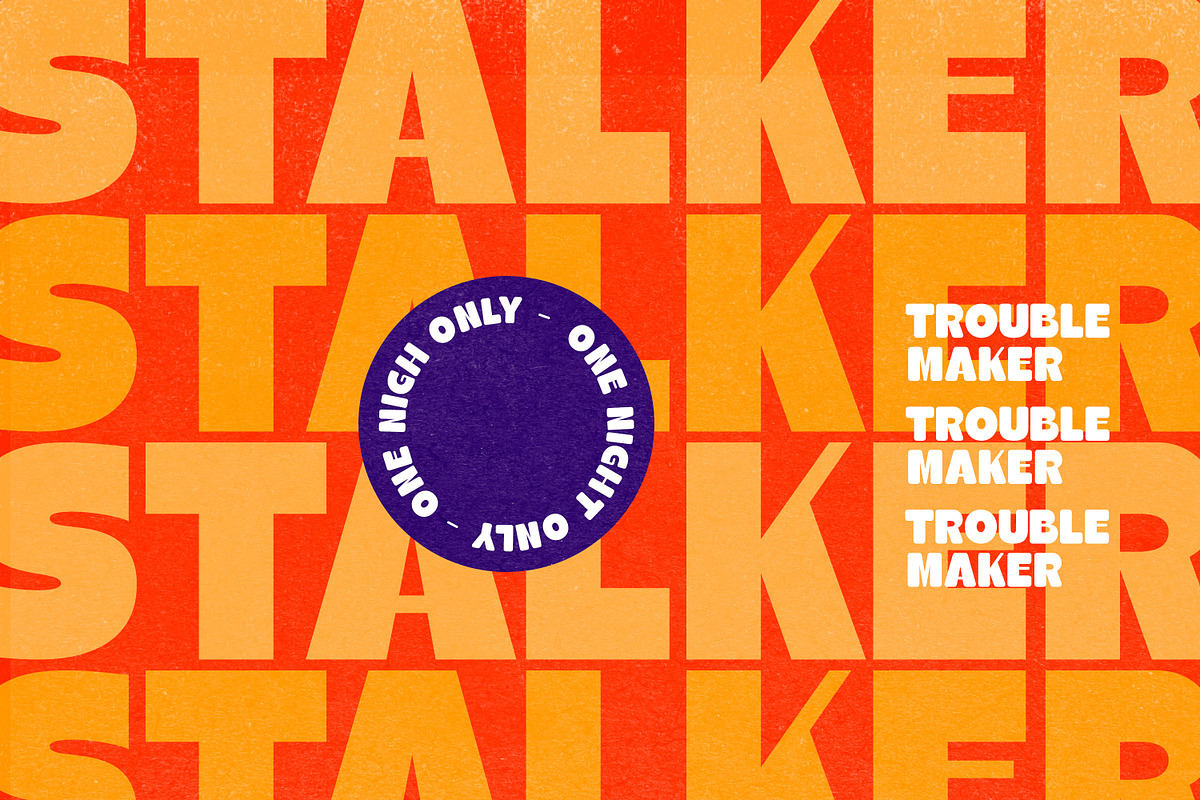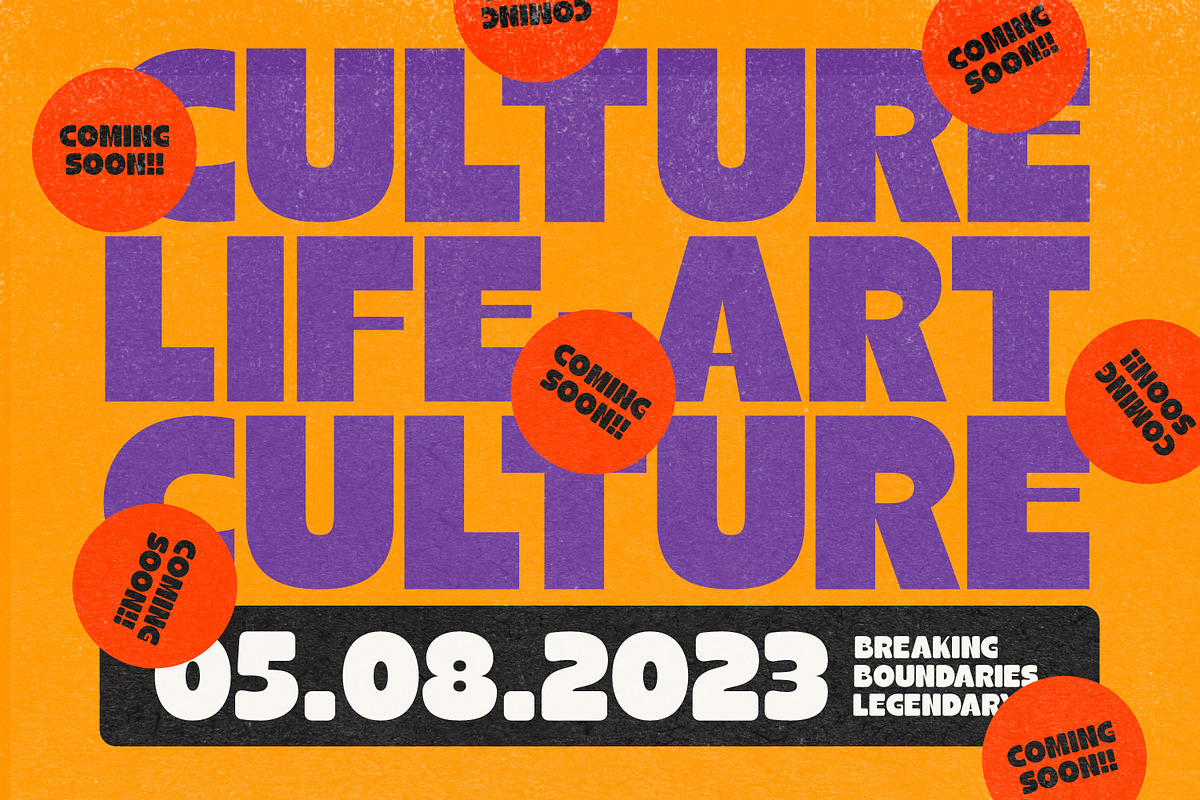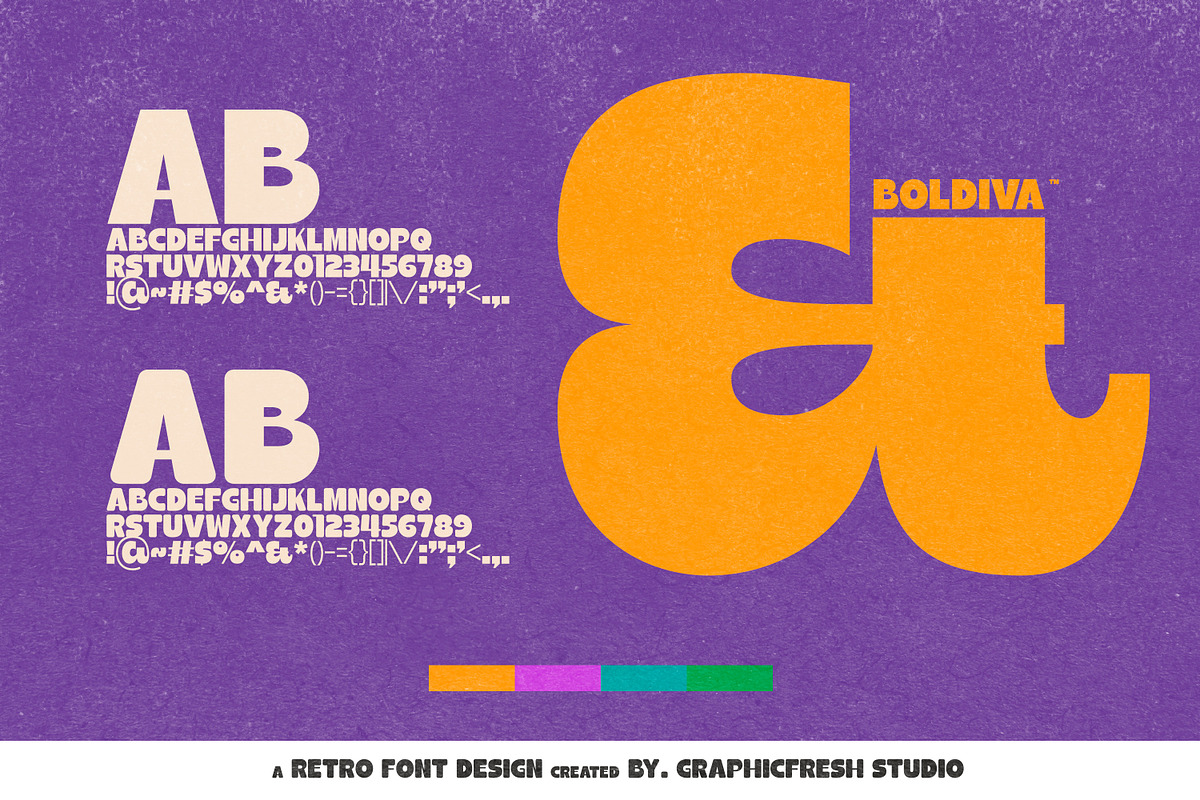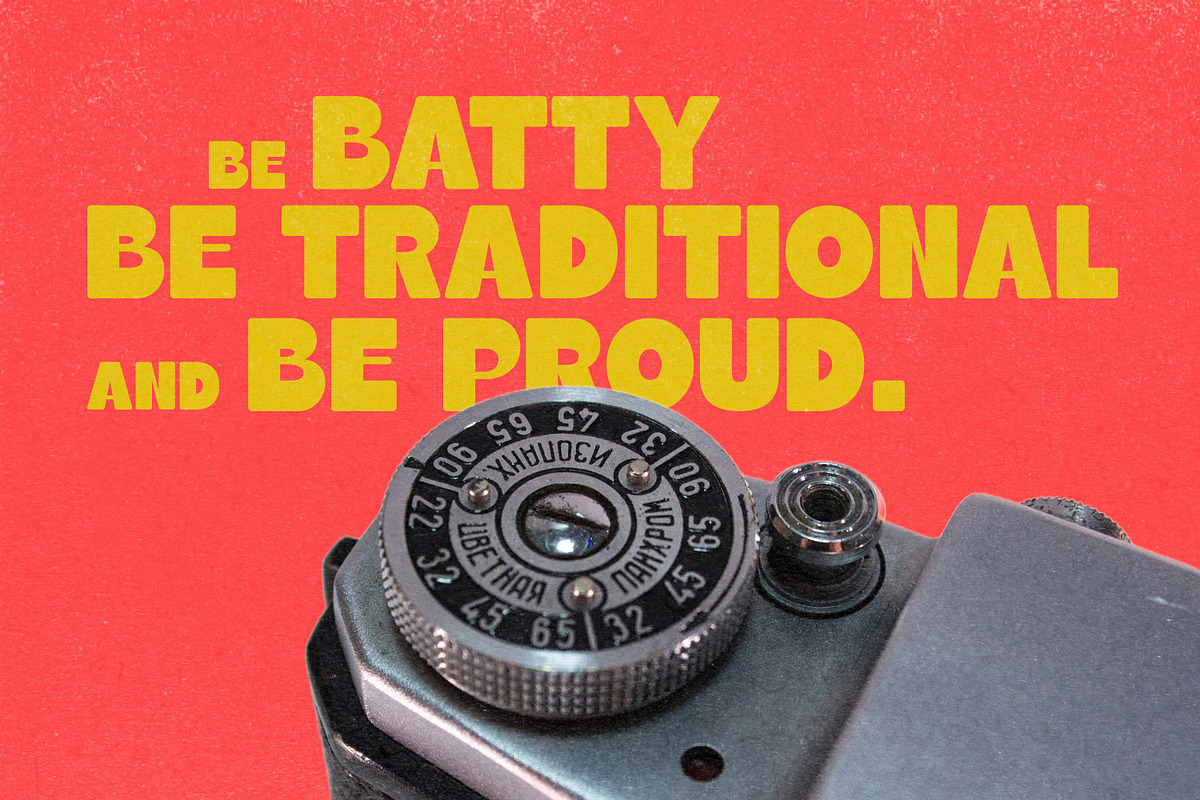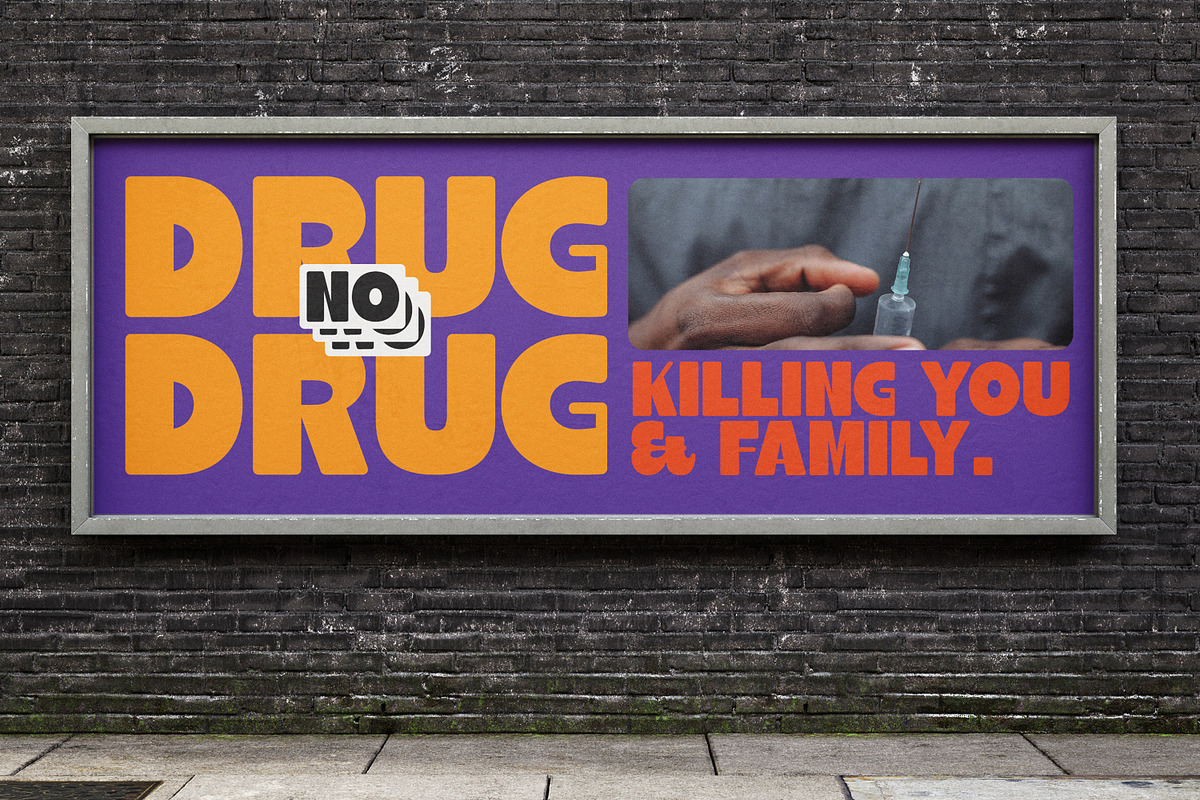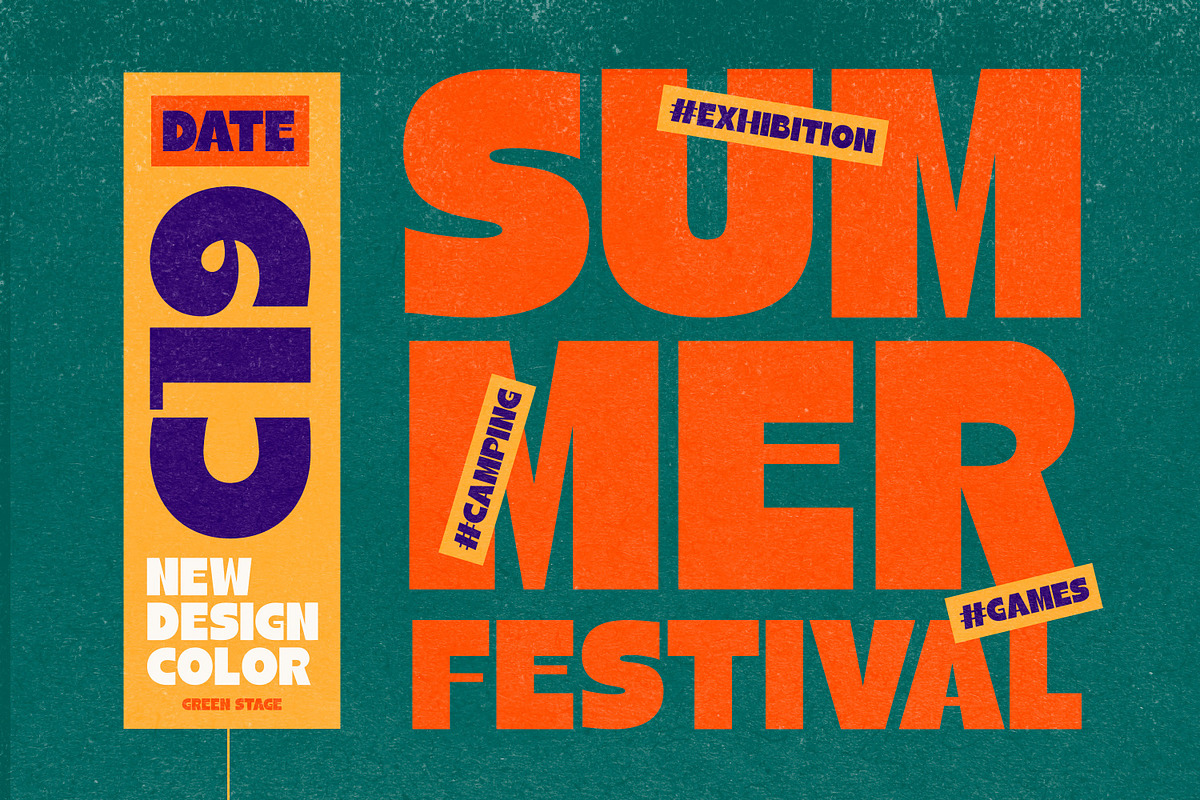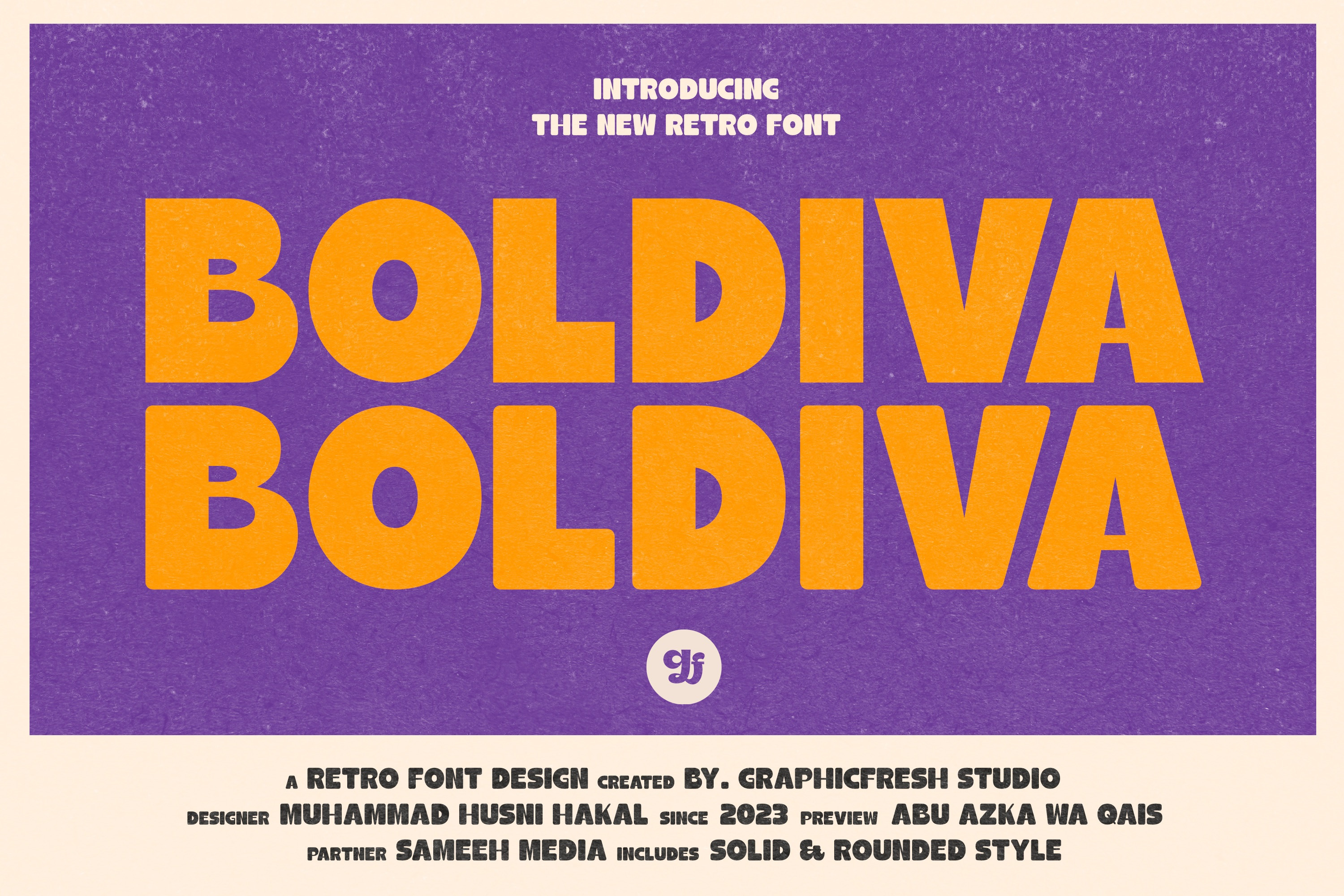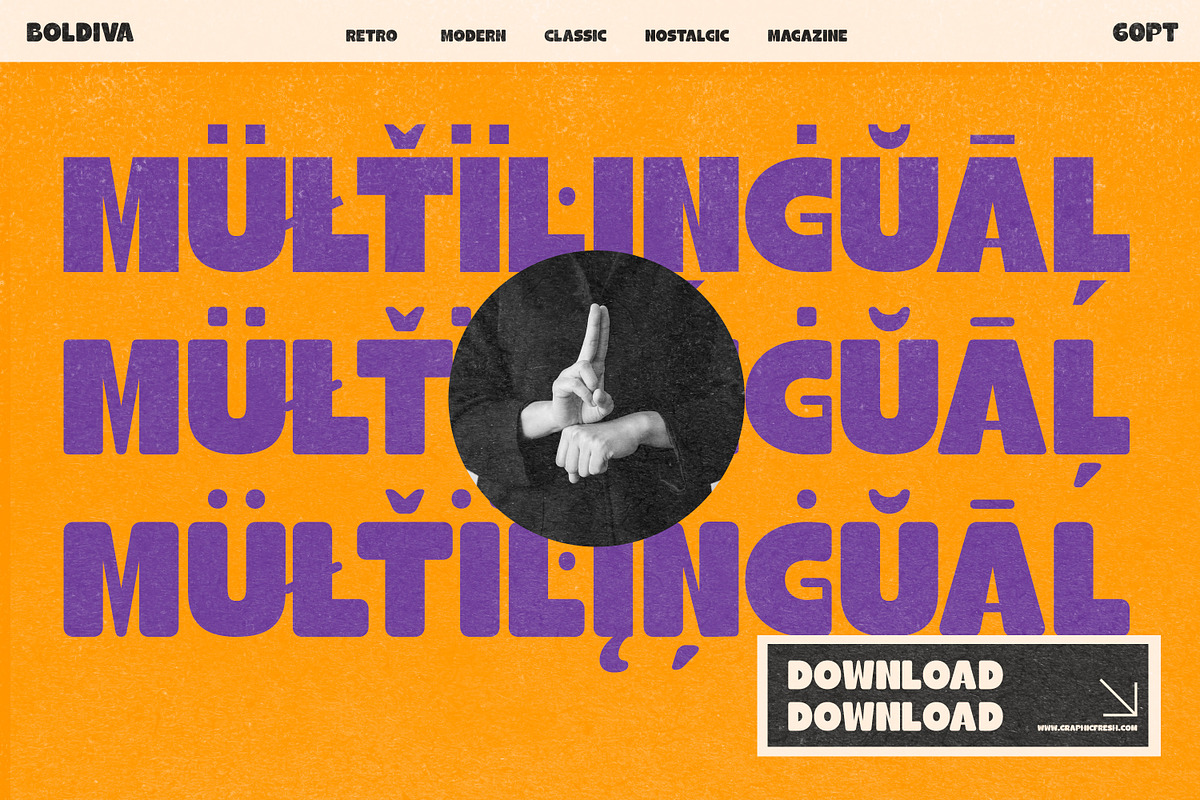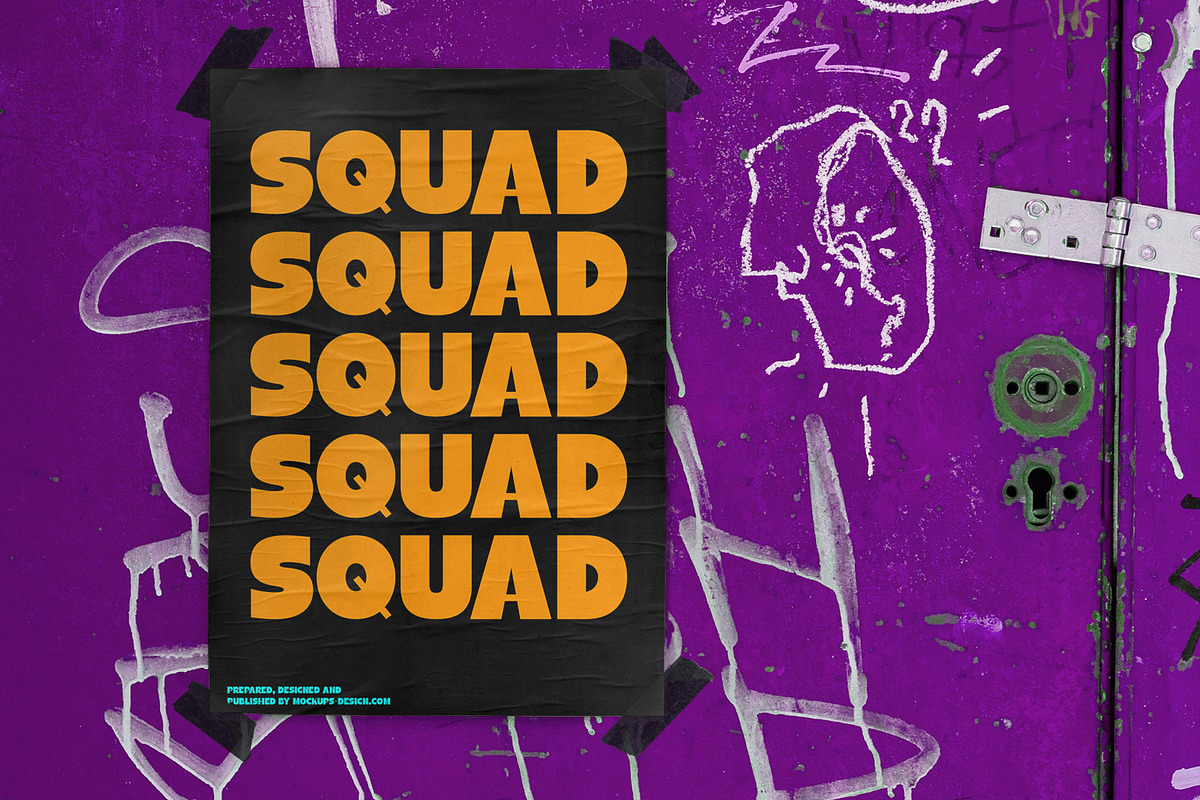
Boldiva Retro Font
Looking for a way to add a touch of bold, retro charm to your designs that evokes the fun and creativity of the 70s, 80s, and 90s? Look no further than our collection of classic and modern fonts that are perfect for logos, posters, and all kinds of design projects, whether you're going for an old-school vibe or a fresh new twist on retro design.
With our carefully curated selection of fonts, you'll have everything you need to create eye-catching and memorable designs that capture the essence of classic design from the past. Whether you're looking to add some vintage flair to a modern design, or you want to create a throwback look that's right at home in the 90s, our fonts are the perfect tool for the job.
From bold, geometric designs that harken back to the 80s, to playful, colorful fonts that embody the fun-loving spirit of the 70s, our collection has something for everyone. And with our easy-to-use design tools and resources, you'll have everything you need to bring your creative vision to life in no time.
So why wait? Start exploring our collection of classic and modern fonts today, and discover how easy it can be to create stunning logos, posters, and designs that are truly one-of-a-kind. Whether you're a seasoned designer or just starting out, our fonts are the perfect way to add a touch of old-school charm to any project.
Graphicfresh